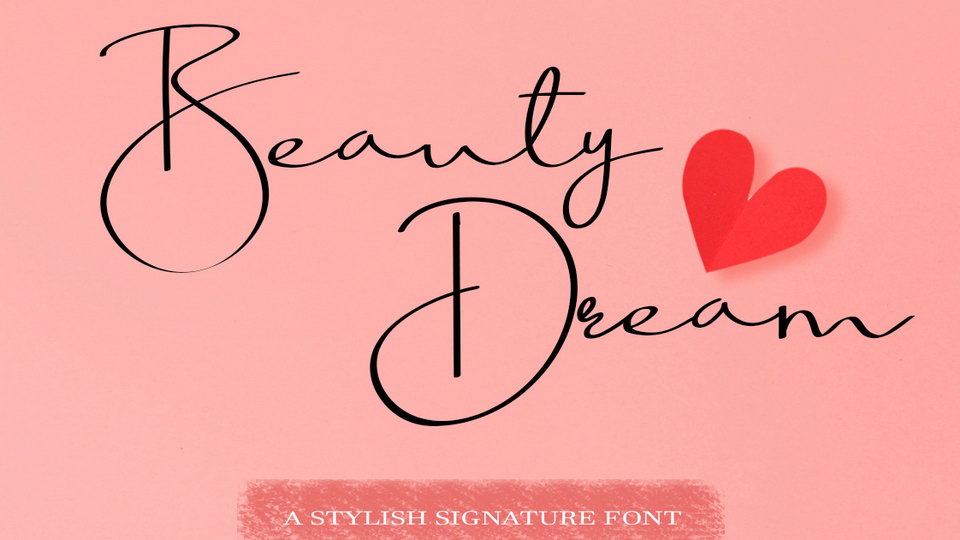
Download Beauty Dream font, a beautiful, soft, sweet and charming handwritten script made in signature style with an incredible personality. Beauty Dream font is perfect for personal branding, signature style logos, watermarks, letters and cards, wedding design and more.
Designer: Halymunt Studio